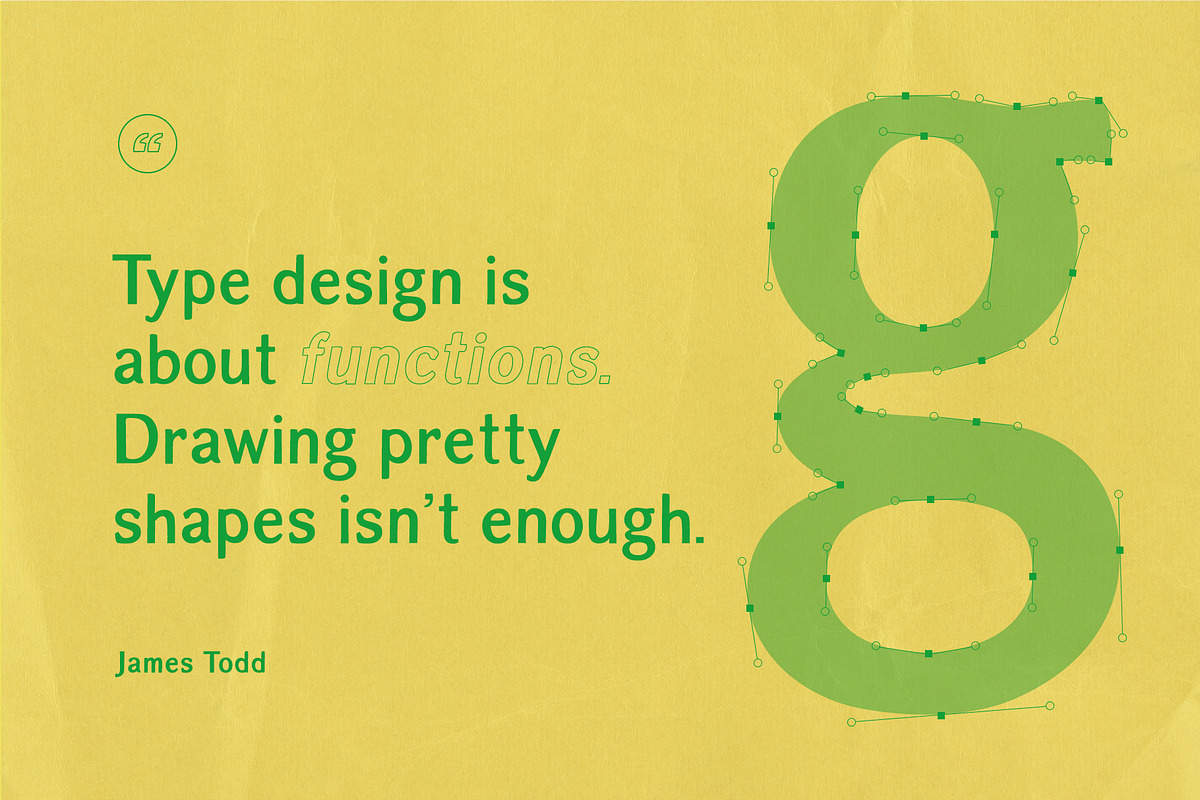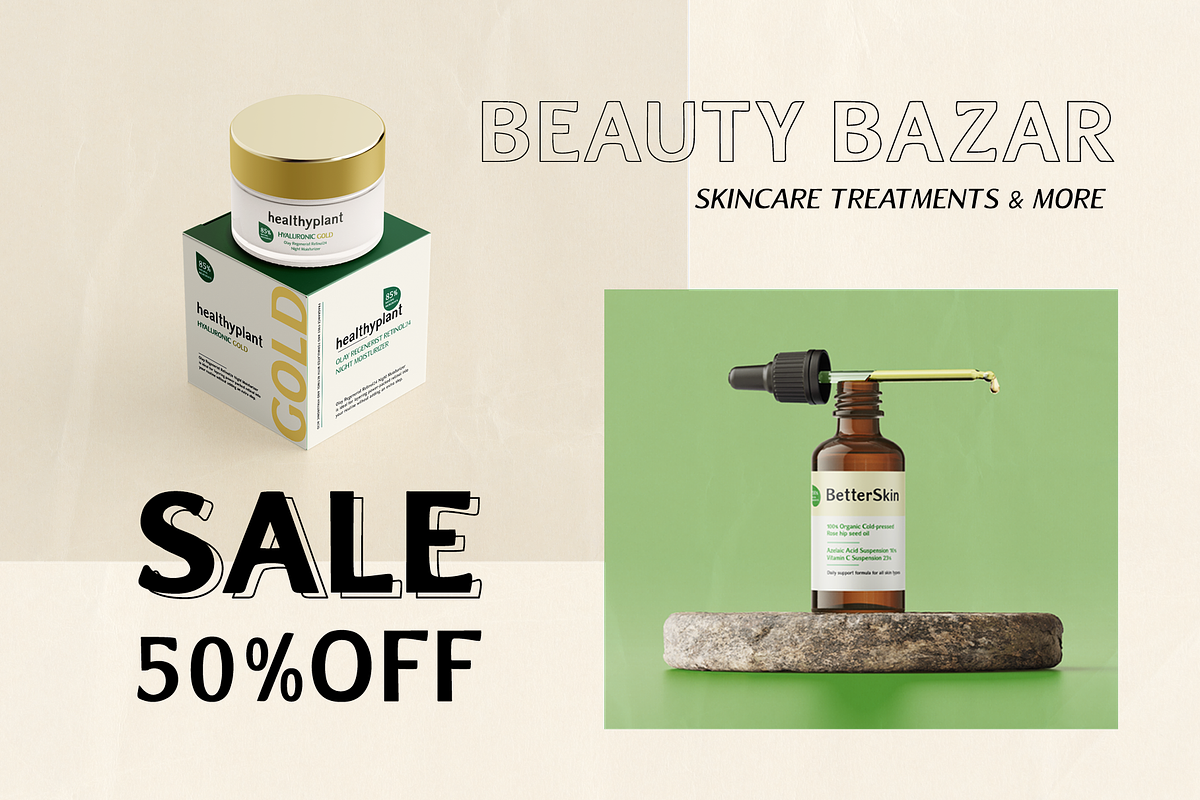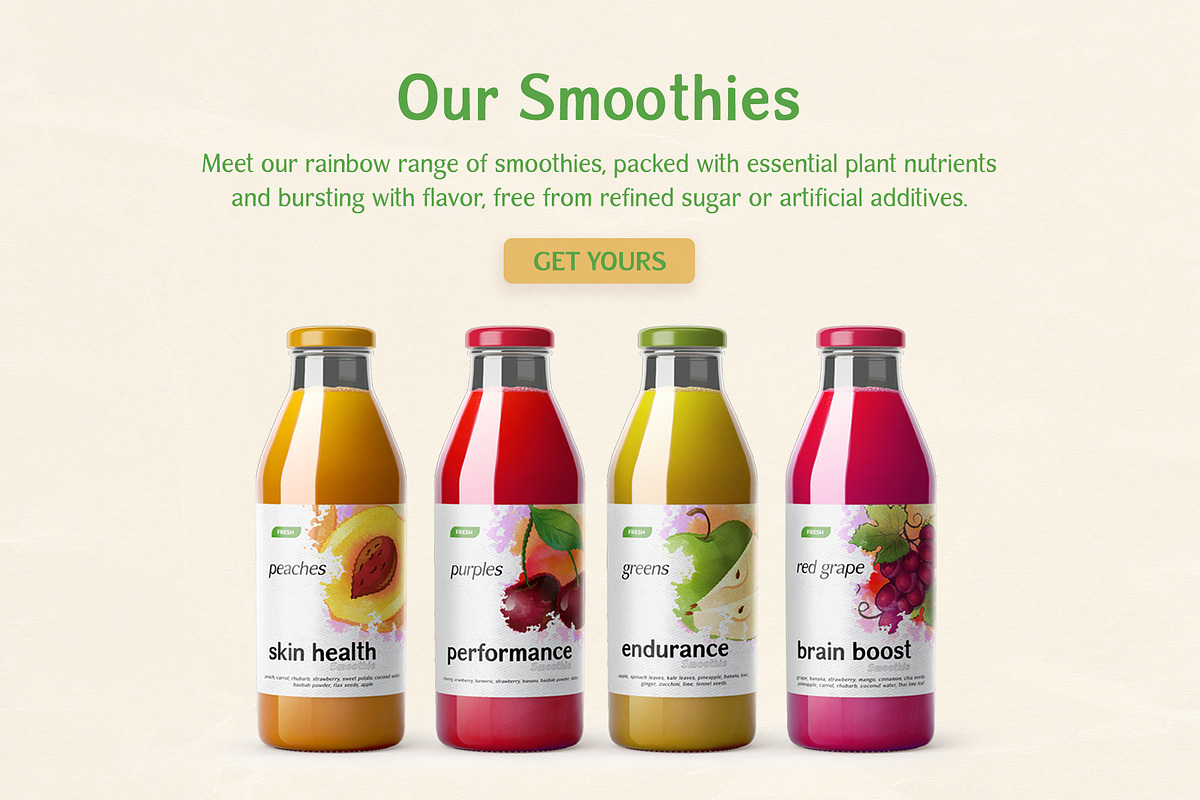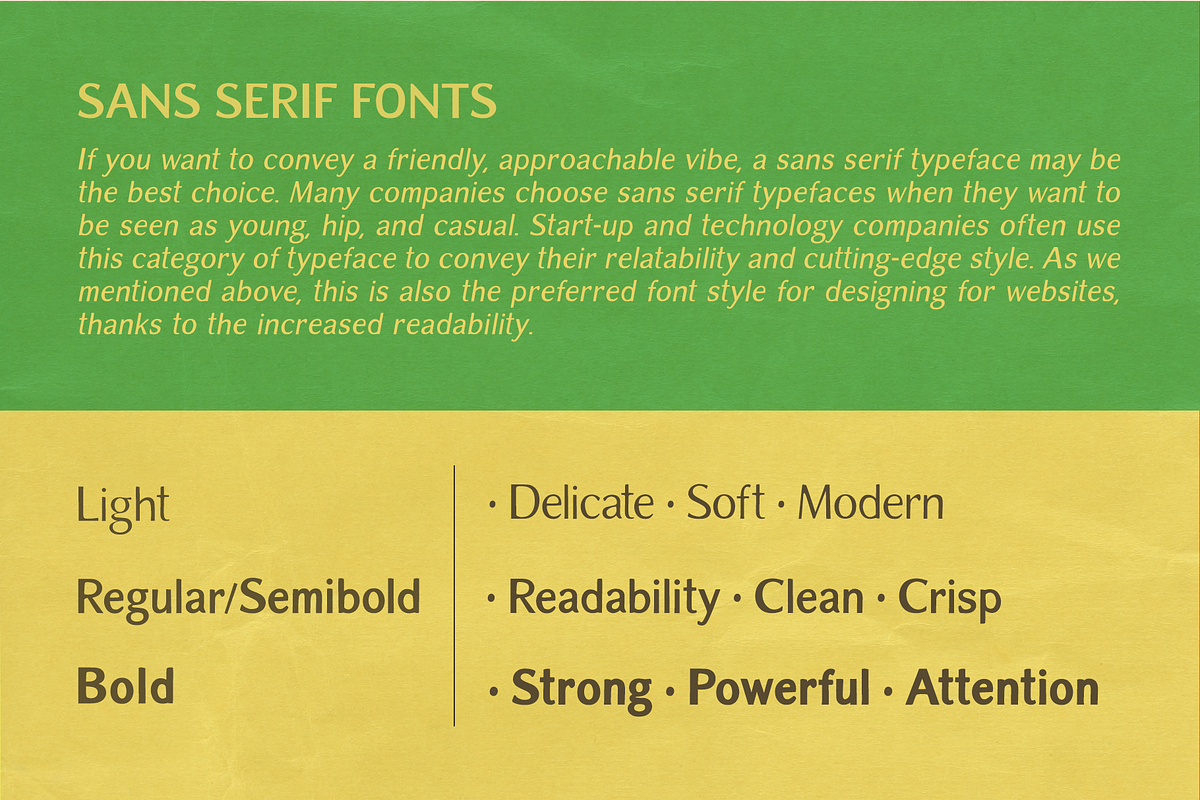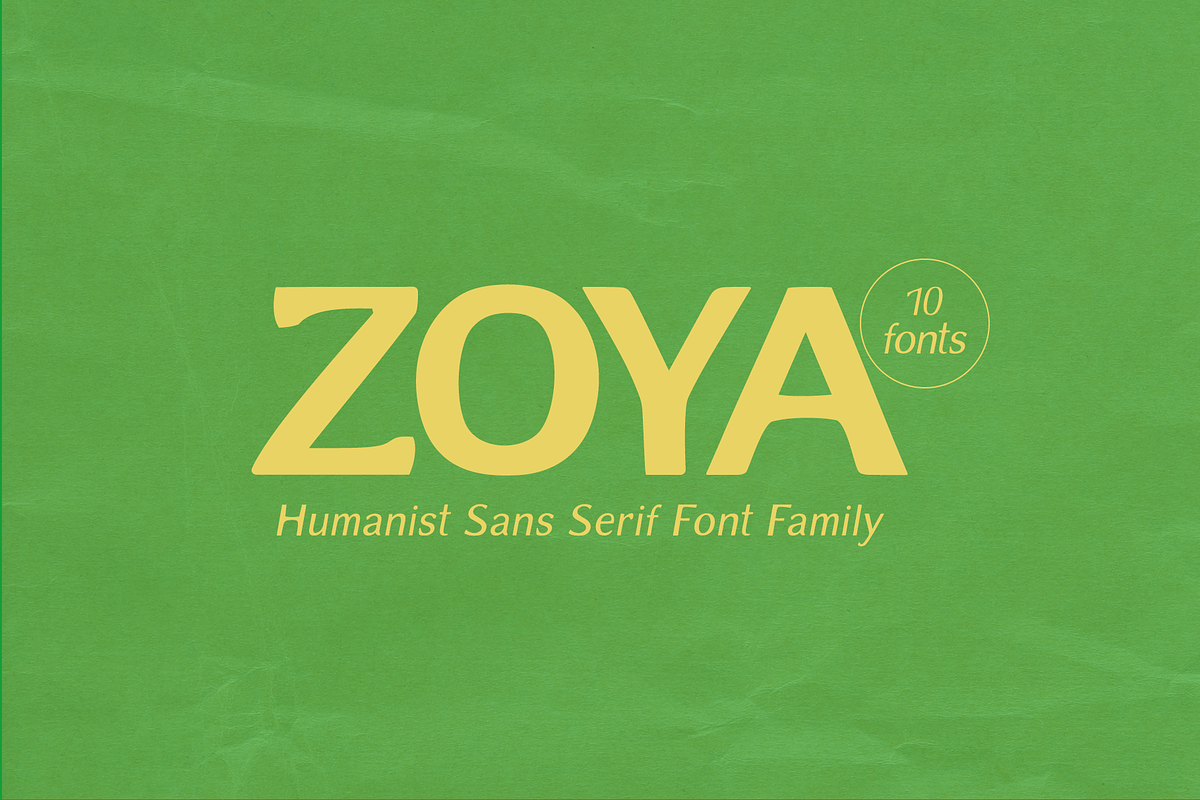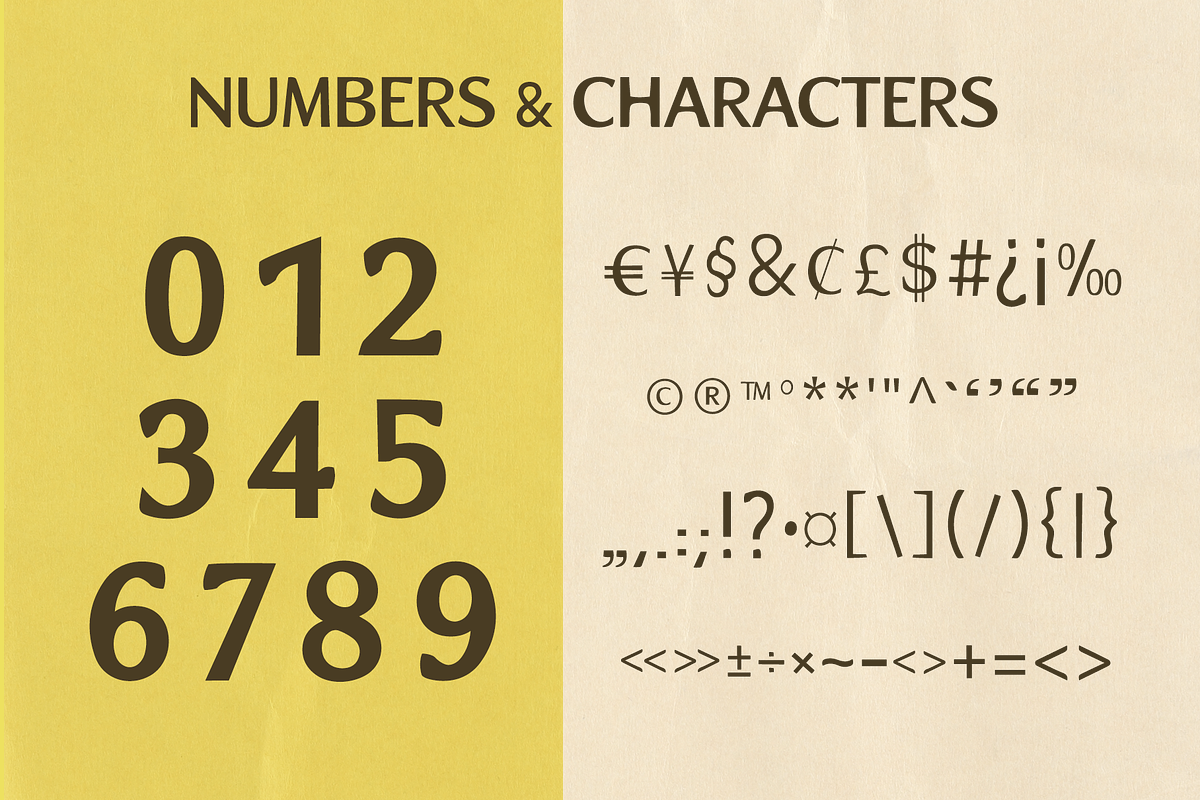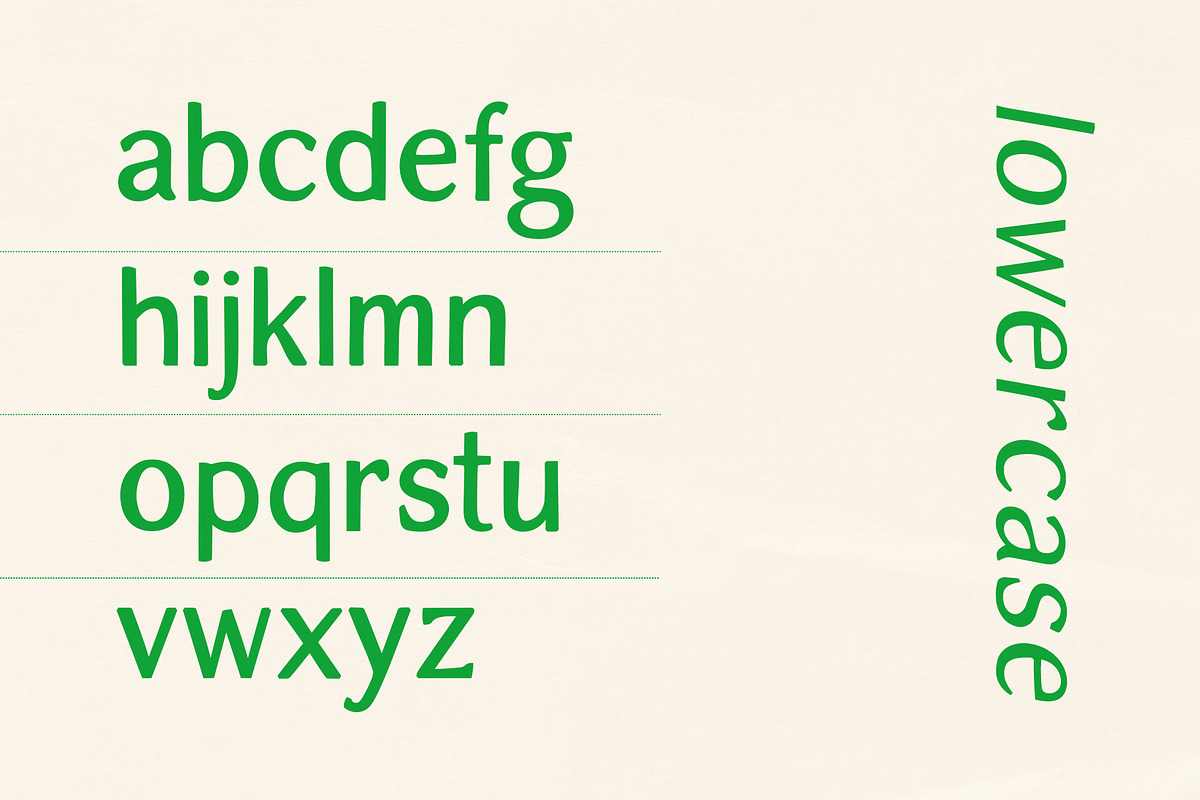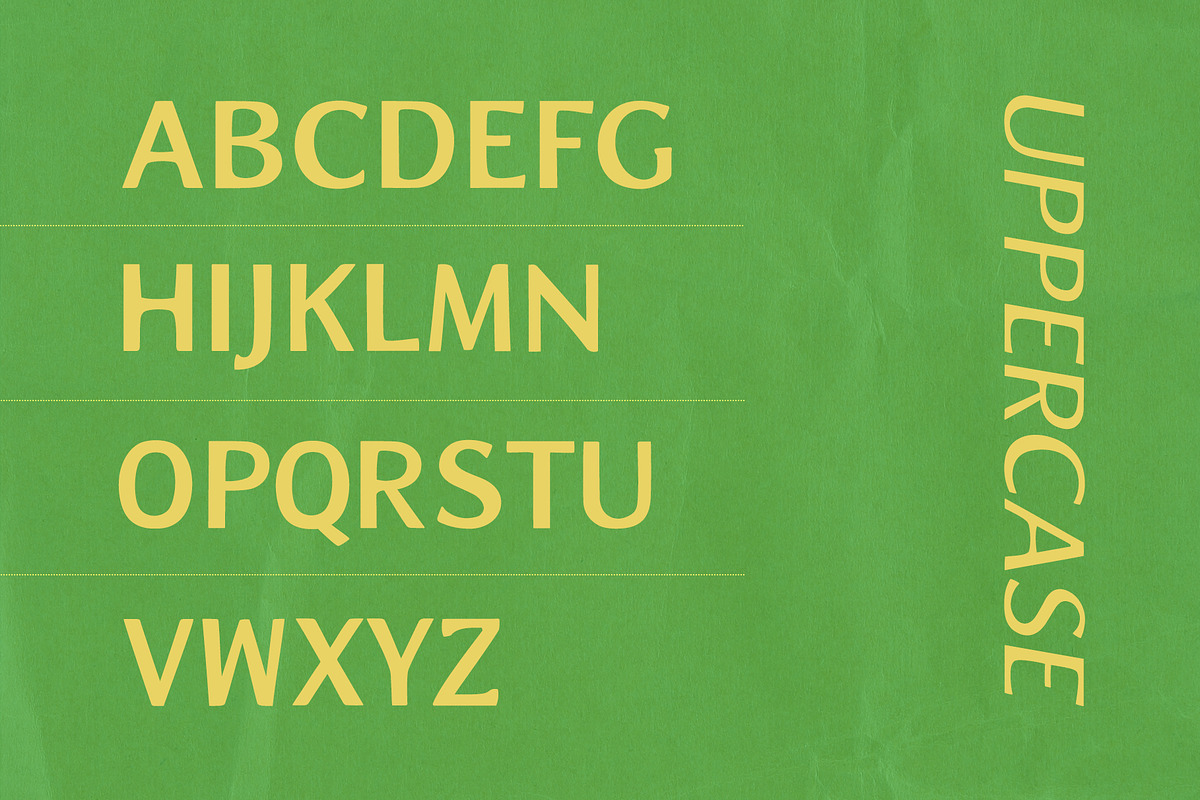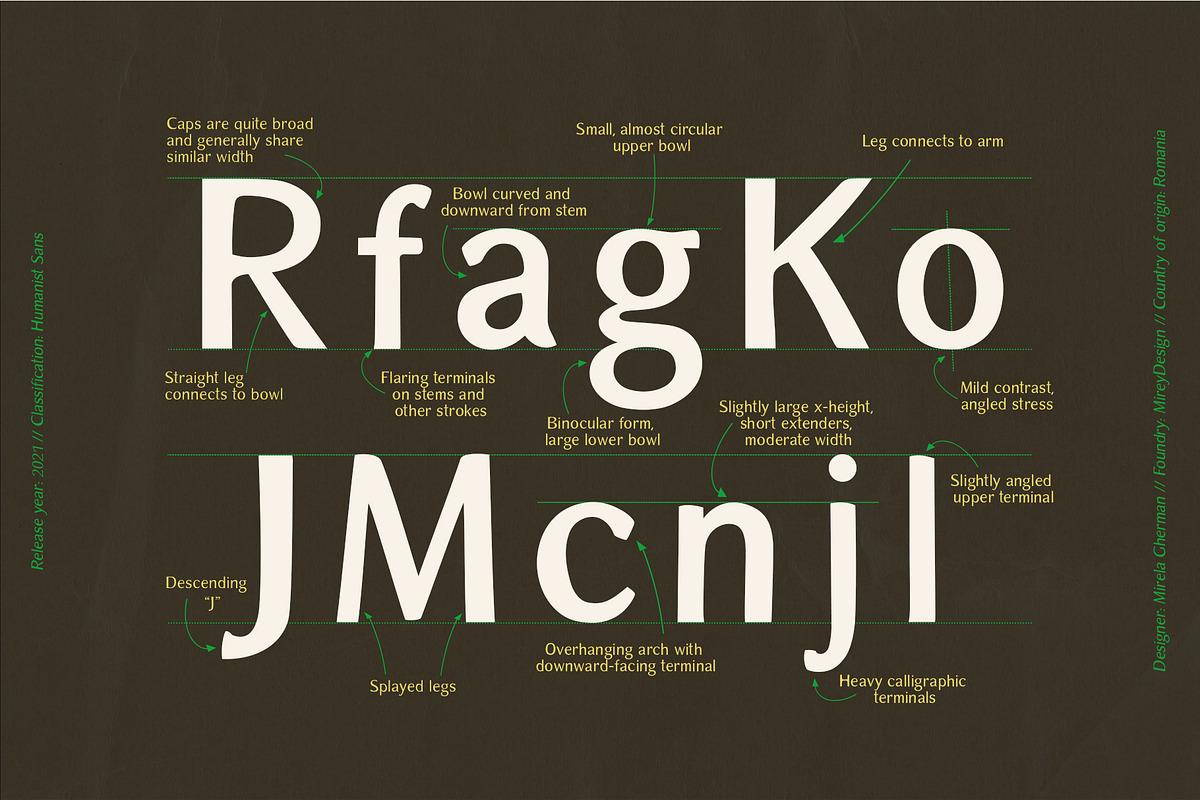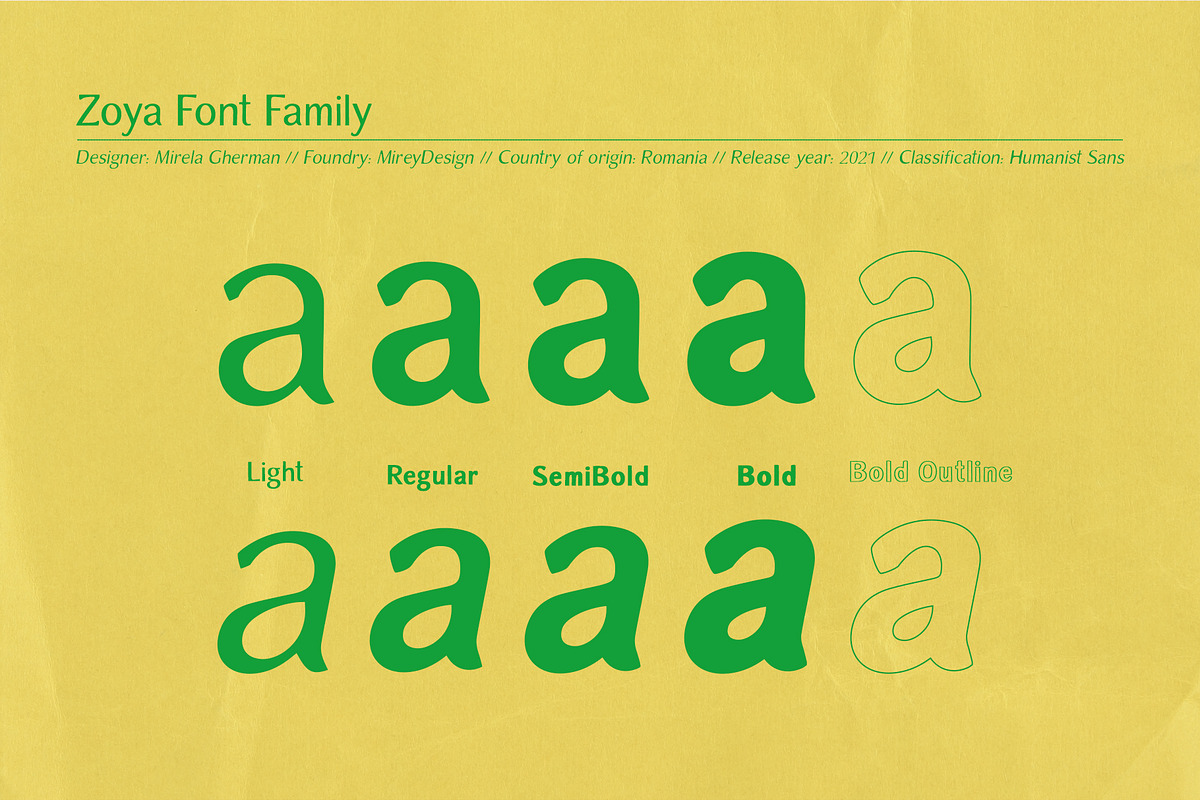
ZOYA
Zoya is a humanist sans serif typeface, a versatile font family that stands out with it's warm and natural feel. Humanist sans serifs have roots in calligraphy, their round, dynamic, open forms have higher stroke contrast than the other sans serif classifications. Can be used by any organization that wants to appear simultaneously modern, approachable, active and professional.
The font family includes 10 fonts
- Zoya Light - delicate and edgy
- Zoya Bold - strong but approachable
- Zoya Regular and Semibold are the balance between the two
- Zoya Bold Outline - engaging
+ Italics
USE
Strong capitals and a smooth, open lowercase are effective in a variety of applications. This font is perfectly suited for headlines, posters, branding, packaging, presentations, logo, quotes, titles, magazines headings, web layouts, advertising, invitations, packaging design, books, and nearly any creative design.